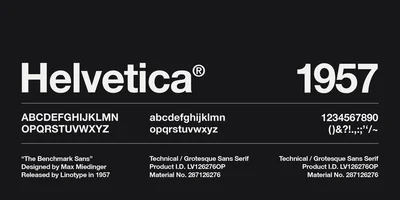
Helvetica vs Inter
This comparison helps you decide whether Inter can replace Helvetica without changing the overall typographic feel. With 88% similarity, Inter shares Helvetica's neutral, neo-grotesque character with similar x-height and letter spacing. Inter keeps the neutral vibe but is tuned for modern digital typography.
| Feature | Helvetica | Inter |
| Variable Font | No | Yes |
| Weights | Multiple | Variable (100-900) |
| Language Support | latin, latin-extended, cyrillic | latin, latin-extended, cyrillic, cyrillic-extended, greek, greek-extended, vietnamese |
| x-Height Ratio | N/A | 0.546 |
| Cap Height Ratio | N/A | 0.728 |
Consider: Helvetica
- Shares Helvetica's minimal character
- Particularly suited for UI design and web applications
- Variable font with continuous weight adjustment
- Supports 7 scripts including cyrillic and cyrillic-extended
- Delivers a modern, clean, professional aesthetic
Recommended: Inter
- Designed specifically for corporate and editorial